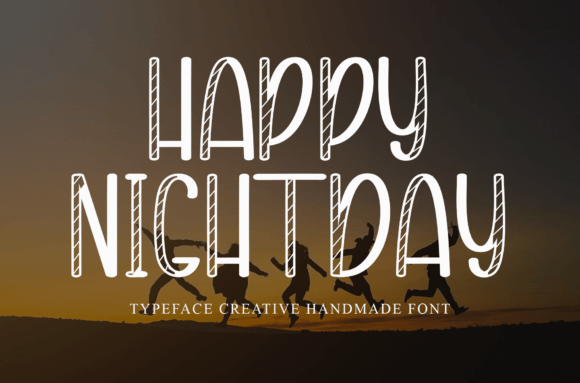
The Joy of Handwritten Delights: Introducing the Happy Nightday Font
Do you ever find yourself lost in a sea of blank paper, searching for the perfect font to capture the essence of your creative vision? Perhaps you’re planning a whimsical wedding invitation, or a heartfelt birthday card. Whatever your design dreams may be, you’re in luck – because we’re about to introduce you to the Happy Nightday Font, a sweet and friendly handwritten font that’s sure to bring a smile to your face.
This delightful font is more than just a pretty face – it’s a valuable tool for designers looking to add a touch of whimsy and personality to their designs. With its cute and fun style, the Happy Nightday Font is perfect for writing invitations, cards, or any other design that needs a fun and playful twist. Whether you’re a seasoned pro or a design newbie, this font is sure to become your new go-to for all your creative endeavors.
Happy Nightday Font Key Features
- Font Family: Happy Nightday Font is a unique sans-serif font designed to evoke a sense of calm and serenity.
- Font Size: The font family includes a wide range of sizes, from 12pt to 72pt, making it suitable for various applications, including body text and headings.
- Unique Characteristics: The Happy Nightday Font features a distinctive blend of rounded and geometric shapes, creating a soothing and modern aesthetic.
Happy Nightday Font Review
At first glance, the Happy Nightday Font is quite an interesting choice. ✨ It’s a unique blend of day and night elements that might just work for the right project. The design is playful and might appeal to those looking for something quirky.
- The combination of day and night elements is an interesting concept, which could add a lot of character to a design.
- The font is highly customizable, with options for adjusting the color palette, shape, and more.
- The font is available in a wide range of languages, making it a great option for international projects.
- The font might be too gimmicky for some projects, and could detract from the overall message.
- The design is quite busy, which could make it difficult to read at smaller sizes.
- The font is not suitable for formal or professional projects, where a more traditional font is often preferred.
Overall, I think the Happy Nightday Font is a great option for those looking for a unique and playful font. However, it may not be the best choice for every project. Use it wisely, and consider the context and message you’re trying to convey.
The Happy Nightday Font is ideal for creative projects, such as:
- Typography-based designs
- Logo designs
- Poster designs
For optimal results, use the Happy Nightday Font in conjunction with bold colors and contrasting backgrounds.